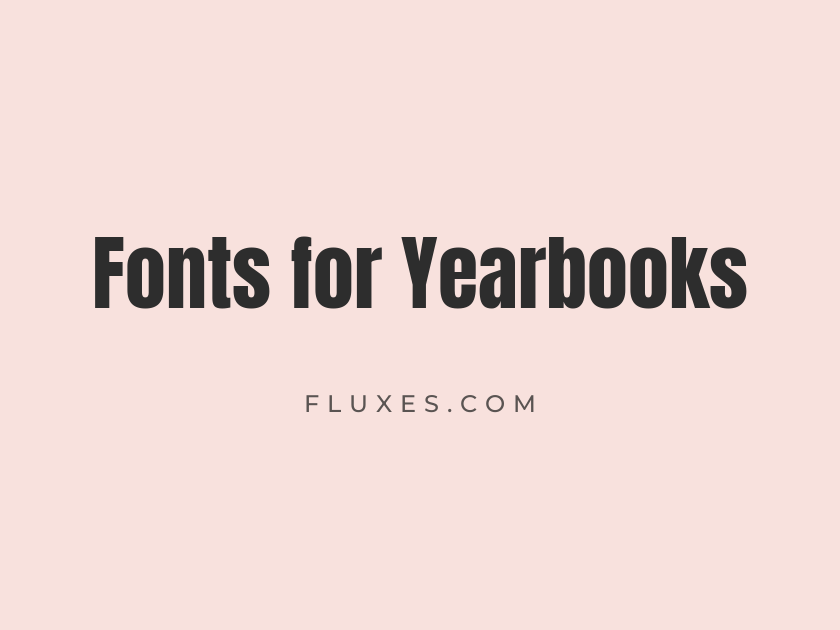
68 Best Fonts for Yearbooks
Yearbooks juggle more typographic jobs than almost any other print project: a bold cover title, punchy section dividers, dense name lists, warm personal bios, playful captions, and pages full of handwritten notes from friends. Finding free fonts for yearbooks that cover all of that without licensing headaches is easier than it sounds, since Google Fonts has a deep bench of display, serif, sans, script, and handwriting families built for exactly this kind of mixed-use design. The right combination gives a yearbook that collegiate, nostalgic feel while staying easy to read at caption size and cheap to produce at scale.
Anton is the font every yearbook cover designer reaches for eventually. It is ultra-condensed and heavyweight enough to dominate a page from across the room, which makes it ideal for a masthead or a single dramatic word on the divider before the senior section.
Bebas Neue has become shorthand for the poster-and-athletics look, all capitals and clean vertical strokes with no lowercase to soften it. It reads as confident and current rather than dated, so it works equally well on a sports spread or a modern minimal cover.
Oswald brings the same condensed, stencil-adjacent energy as classic gothic headline type but with more polish and a full range of weights. It is versatile enough to run section headers, pull quotes, and even subheads within the body copy without feeling repetitive.
This one is blunt and heavy in the best way, built for short bursts of text rather than long lines. Use it sparingly for superlative labels or club names where you want a headline that hits hard in two words or fewer.
Staatliches has a stamped, poster-press quality that feels lifted from an old pennant or ticket stub. It suits a school with strong athletics or spirit-week culture that wants its yearbook to look a little like game-day signage.
Squada One
Rounded corners keep Squada One from feeling as aggressive as most condensed display faces, giving it a friendlier, slightly retro sports-jersey character. It is a good candidate for team names and event banners.
Racing Sans One
True to its name, this face leans into motorsport and athletic branding with slanted, aerodynamic letterforms. Reserve it for anything tied to speed, competition, or team spirit rather than quiet editorial pages.
Teko is narrow and modern with a slightly technical feel, useful for schedules, room numbers, and other small utilitarian labels that need to stay legible in a tight column. It pairs comfortably with almost any heavier display font used for the actual headlines.
Rounded, chubby, and a little bit playful, Passion One softens the usual varsity swagger into something closer to a comic-book title card. It fits candid photo pages and superlative call-outs better than formal editorial spreads.
The slab serifs here are thick enough to feel almost architectural, giving short headlines real presence on the page. It can overwhelm a spread if overused, so treat it as an occasional accent rather than the everyday headline font.
Righteous carries a retro-futuristic geometric look, part 1970s poster and part arcade marquee. It is a strong choice for a yearbook that leans into a specific decade theme for its design concept.
This is a slab serif with real weight and a slightly old-fashioned, engraved feel, closer to a plaque or diploma than a poster. It gives formal recognition sections, like honor rolls and awards pages, a bit of gravitas.
Bungee was designed for street signage, and that DNA shows in its bold, blocky, high-contrast letterforms. On a yearbook cover or divider page it reads as loud and celebratory, which suits event recap sections nicely.
The inline variant keeps all of Bungee’s confidence but adds a hollow center stroke that gives headlines a bit more texture and visual interest. It works best at larger sizes where the inline detail actually shows.
Titan One is rounded, cartoonish, and unmistakably built for younger audiences, making it a natural fit for elementary or middle school yearbooks. It brings a friendly bounce to section titles without needing any extra decoration.
This face mimics a marker-drawn comic lettering style, casual and a little wobbly in a charming way. It suits candid caption pages and playful call-outs far better than anything meant to read as formal or dignified.
Class Clown, Most Athletic, Biggest Flirt
Bowlby One is thick, rounded, and cheerful, closer to bubble lettering than a traditional typeface. It is a good match for superlative badges or ribbon-style graphics on the awards spread.
Chango
Battle of the bands, talent show
Chango
Chango has a slightly rough, graffiti-adjacent edge that feels youthful without tipping into illegibility. Music, art, and talent-show pages benefit from its informal energy.
Patua One
Drama Club presents Spring Musical
Patua One
Patua One is a bold slab with rounded terminals, sturdy enough to anchor a section header but friendly enough not to feel corporate. It sits comfortably next to photography-heavy layouts where the text needs to hold its own visually.
Kindergarten memories, first day of school
Soft, rounded, and inviting, Fredoka was built with younger readers in mind, which makes it a natural pick for elementary school yearbooks or any spread featuring young kids. It stays clear even at smaller sizes thanks to its generous letter spacing.
Elementary yearbook, third grade smiles
Baloo 2 has a similarly warm, rounded personality to Fredoka but with slightly more weight and presence in its headline forms. Use it for class-by-class dividers where you want something cheerful rather than serious.
Recess buddies, lunchroom laughs
Chewy looks hand-carved, almost like a wooden sign at a playground, and that tactile quality makes it a fun choice for younger-grade sections. It is not meant for long stretches of text, only short, playful headlines.
Prom Night 2025, dance the night away
Lobster is a bold script that reads as vintage diner signage more than formal calligraphy, casual and a little bit retro. It works well on event title pages like prom or homecoming where a script headline needs to be legible from a distance.
Rodeo Club, county fair blue ribbon
This is a Western wanted-poster face, thick and full of character, best reserved for schools or clubs with a rural or country theme. It is distinctive enough that it should be used only where the tone genuinely calls for it.
After-hours dance, neon prom theme
Monoton is built entirely from parallel lines that mimic neon tube lettering, which makes it striking but limited to very large, very short headlines. Save it for a prom or dance-themed cover page rather than anything meant to be read quickly.
Pathway Gothic One
Sports roster, varsity letters awarded
Pathway Gothic One
Tall, narrow, and unadorned, Pathway Gothic One has the clean look of stadium signage. It is a practical choice for roster lists and stat tables where space is tight and clarity matters more than personality.
Student Council, Class Officers 2025
Fjalla One condenses well without losing legibility, giving it a quiet confidence that suits subheadings and running headers throughout the book. It never competes with photography for attention, which is exactly the point.
Yanone Kaffeesatz
Second semester schedule, exam week
Yanone Kaffeesatz
Light, airy, and narrow, Yanone Kaffeesatz is useful anywhere a lot of small text, like a class schedule or index, needs to fit into a limited column width. It stays legible even when set fairly small.
Roboto Condensed
Homeroom list, seating chart notes
Roboto Condensed
When a yearbook needs to pack hundreds of names into a grid, Roboto Condensed earns its keep. It is dependable, neutral, and space-efficient, the kind of workhorse font nobody notices because it simply does its job well.
Junior Varsity Roster, Fall Season
Barlow Condensed has a slightly softer, more humanist structure than most condensed grotesques, which keeps long roster lists from feeling cold. It also doubles nicely as a caption font under team photos.
PT Sans Narrow
Alphabetical index of every senior
PT Sans Narrow
Built for exactly this kind of dense, practical typesetting, PT Sans Narrow keeps long alphabetical indexes tidy and easy to scan. It is not a font anyone will comment on, and that restraint is its strength.
Sign here, stay sweet, don't change
Amatic SC looks hand-drawn and a little wobbly, tall and thin in a way that feels personal rather than printed. It is a favorite for signing pages and margin notes where the design wants to look informal on purpose.
- Language support: Latin, Latin Extended, Cyrillic, Hebrew, Vietnamese
Field notes from the newspaper staff
This typewriter-style face brings an instant sense of nostalgia and reportage, as if the caption were typed on an old newsroom machine. It suits a yearbook with a journalism or archival theme far better than a glossy modern one.
Courier Prime
Attendance record, first period roll call
Courier Prime
Courier Prime cleans up the rough edges of a typical typewriter font while keeping its fixed-width rhythm, which gives captions and stamped-looking labels a crisp, documentary feel. It reads well even at small caption sizes, unlike many novelty typewriter fonts.
A letter from the principal
Merriweather was designed for screens and long-form reading, with sturdy serifs that hold up in small print. It is a reliable choice for the principal’s letter, editor’s note, or any block of text longer than a caption.
Senior year, in her own words
Lora has a gentle calligraphic influence in its curves that gives body text some warmth without sacrificing readability. It works nicely for student quotes and personal essays scattered through the senior section.
Faculty and staff, a tribute page
Sturdy and unfussy, PT Serif was built to be legible across a wide range of sizes and printing conditions, which matters when a yearbook is offset-printed on modest paper. It is a dependable pick for staff bios and tribute pages.
Clubs and organizations, spring semester
Source Serif 4 pairs naturally with its sans-serif sibling Source Sans if a design wants a coordinated family across headlines and body text. On its own it reads as clean and contemporary rather than traditional.
In memory of a beloved teacher
Libre Baskerville carries the quiet formality of a classic book typeface, which suits memorial pages, dedications, and anything that calls for a more solemn tone. Its slightly larger x-height keeps it readable even in smaller caption blocks.
Valedictorian speech, graduation day
This is a literary, old-style serif with a scholarly feel, well suited to a valedictorian’s speech or a lengthy senior quote. It is less useful at very small sizes, where the fine serifs can start to blur.
- Styles: 6 styles (3 weights plus italics)
Est. 1962, a century of tradition
EB Garamond brings centuries of typographic pedigree to a page, ideal for a school proud of its history and tradition. Its refined, understated letterforms suit an “est. [year]” line or a formal masthead better than any of the louder display options on this list.
Behind the scenes with the yearbook staff
Bitter is a slab serif built specifically for on-screen and small-format reading, sturdy enough to survive busy layouts and photo-heavy spreads. It gives body copy a bit more character than a plain sans without sacrificing clarity.
Most Likely to Change the World
Playfair Display has become a go-to for editorial elegance, with dramatic contrast between thick and thin strokes that photographs beautifully on a cover. It is best reserved for superlatives, senior quotes, or the title page rather than long paragraphs, where that contrast can get harder to read.
Academic Excellence, Class of 2025
Inspired by classical Roman inscriptions, Cinzel gives headlines an engraved, collegiate seriousness that suits honor societies and academic award pages. It carries an air of permanence that few display fonts manage.
Commencement Ceremony, June 2025
The decorative companion to Cinzel adds ornamental flourishes to certain letters, making it a strong choice for a graduation title page or diploma-style spread. Keep it short and large; the ornamentation gets busy in longer lines.
Editor's note, a final farewell
Cormorant is a display serif with delicate, jewelry-like detailing that gives closing pages and editor’s letters a refined, literary tone. It reads best at larger sizes, where its fine details have room to breathe.
Student profiles and club descriptions
Open Sans is about as safe and versatile a body font as exists on Google Fonts, humanist, neutral, and easy on the eyes across long stretches of student bios. It rarely calls attention to itself, which is exactly what a caption-heavy yearbook layout needs.
- Language support: Latin, Latin Extended, Cyrillic, Cyrillic Extended, Greek, Greek Extended, Hebrew, Vietnamese
Meet the freshman class of 2025
Lato has a warmer, slightly more rounded feel than most grotesque sans fonts, making it approachable for introductory copy and welcome pages. It holds up well in both very small captions and larger pull quotes.
Sports scores, game recaps, team stats
Roboto is everywhere for a reason: consistent, legible, and unremarkable in the best possible way for dense statistical content like scoreboards and game recaps. It is a solid default when a designer just needs text to work.
Table of contents, page four
Clean and slightly technical, Source Sans 3 is well suited to structural elements like a table of contents, page numbers, or running footers. It stays out of the way of the photography, which is often the whole point of a yearbook page.
Kindergarten cuties, preschool smiles
Nunito’s rounded terminals give it a soft, approachable character that works especially well for younger grade levels. It is friendly without tipping into the cartoonish territory of the more playful display fonts on this list.
Senior spotlight, where are they now
Work Sans was built for interface and editorial use alike, with a slightly condensed, contemporary feel that suits senior spotlight features and alumni updates. It reads as current without being trendy in a way that will date quickly.
Band, choir, and orchestra highlights
Karla has a distinctive, slightly quirky lowercase that gives otherwise plain body text a bit of personality, particularly nice for arts and music program pages. It stays legible at caption sizes without losing that character.
Cafeteria menu, lunch bunch photos
PT Sans is a workmanlike humanist sans with excellent legibility across sizes, making it a comfortable choice for menu-style lists and photo captions throughout the book. It pairs easily with PT Serif if a two-family system is preferred.
Robotics club builds a winning bot
Rubik’s slightly rounded corners and geometric structure give it a modern, tech-forward feel, fitting for STEM clubs, robotics teams, or a yearbook aiming for a cleaner contemporary look overall. It works confidently as both a subhead and a caption font.
Art class gallery, student showcase
Jost channels a geometric, Bauhaus-inspired structure that suits an art department showcase or a design-forward yearbook theme. Its evenly weighted letterforms give layouts a tidy, architectural feel.
Comic Neue
Funniest moments, caught on camera
Comic Neue
Comic Neue cleans up the exaggerated bounce of old comic-style lettering into something more balanced and genuinely readable. It suits candid caption pages and joke sections where a straight sans would feel too serious.
- Styles: 6 styles (3 weights plus italics)
Field day fun, water balloon toss
Sniglet is soft, chubby, and unmistakably playful, a good fit for elementary-level candid pages or any spread that wants to feel light-hearted rather than formal. It is not built for long paragraphs, only short bursts of caption text.
- Styles: 2 weights (Regular, Extra-Bold)
Best friends since kindergarten forever
Pacifico’s surf-shop, hand-lettered curves have made it one of the most recognizable casual scripts on Google Fonts. It brings a friendly, nostalgic touch to signing pages and friend-group captions.
With love, your homeroom bestie
Thin, looping, and delicate, Sacramento mimics fine ballpoint handwriting rather than formal calligraphy. It is well suited to short personal messages and sign-off notes scattered through the margins.
Have a great summer, stay in touch
Caveat looks genuinely handwritten, casual and quick, the kind of note a friend might actually scrawl in the margin. It is one of the more legible script options here, which makes it useful even for slightly longer notes.
Never forget senior year, love always
Satisfy has a relaxed, brush-pen quality that sits comfortably between a formal script and true handwriting. It works nicely as a signature-style accent under a photo or beside a senior quote.
Wishing you the best, class of 2025
Dancing Script is bouncy and confident, with connected letterforms that read as celebratory rather than casual. It is a popular pick for yearbook cover subtitles and closing messages alike.
Congratulations, graduate, we are proud
This is a formal calligraphic script, elegant and flowing, best suited to a single line on a graduation page rather than any dense block of text. Its delicate strokes need generous size and spacing to stay crisp.
Sign my yearbook, don't be a stranger
Permanent Marker looks exactly like its name suggests, thick and slightly uneven, as if scrawled straight onto the page. It is a natural fit for signing pages and margin doodles that want to feel spontaneous rather than designed.
Stay cool this summer, see you soon
Bubbly and a little uneven, Indie Flower reads as genuinely youthful handwriting rather than a polished script. It suits candid caption bubbles and casual sign-off notes throughout the book.
It was fun sharing homeroom with you
Patrick Hand is one of the more legible handwriting fonts on Google Fonts, clear enough to use for actual body text rather than just short captions. That makes it a good option for longer personal notes or informal bios.
Doodles, notes, and hallway sketches
This face has a sketchy, notebook-margin quality, as if jotted quickly between classes. It works best in small doses, alongside actual doodles or sketch-style graphics, rather than as a primary text font.
Pairing These Fonts for a Yearbook Layout
Start by choosing one bold display font for the cover and section dividers, something like Anton, Bebas Neue, or Righteous. Keep that choice consistent throughout the book so every section feels part of the same design system.
For body copy, bios, and captions, lean on a plain serif or sans like Lora, PT Serif, Open Sans, or Roboto. These stay legible at small sizes and hold up well on typical yearbook paper stock.
Save scripts and handwriting fonts like Caveat, Pacifico, or Permanent Marker for signing pages and personal notes. A little handwriting goes a long way; using it for entire paragraphs quickly becomes tiring to read.
When space is tight, a condensed font such as Barlow Condensed or PT Sans Narrow will fit long name lists and rosters without shrinking the text into illegibility.
Between bold varsity headlines, understated serifs for the bios, and a handful of genuine handwriting fonts for the signing pages, there is more than enough here to build a yearbook that feels cohesive from cover to closing page. Every font listed is free to download directly from Google Fonts, so the only real decision left is how many of these personalities belong in the same book.